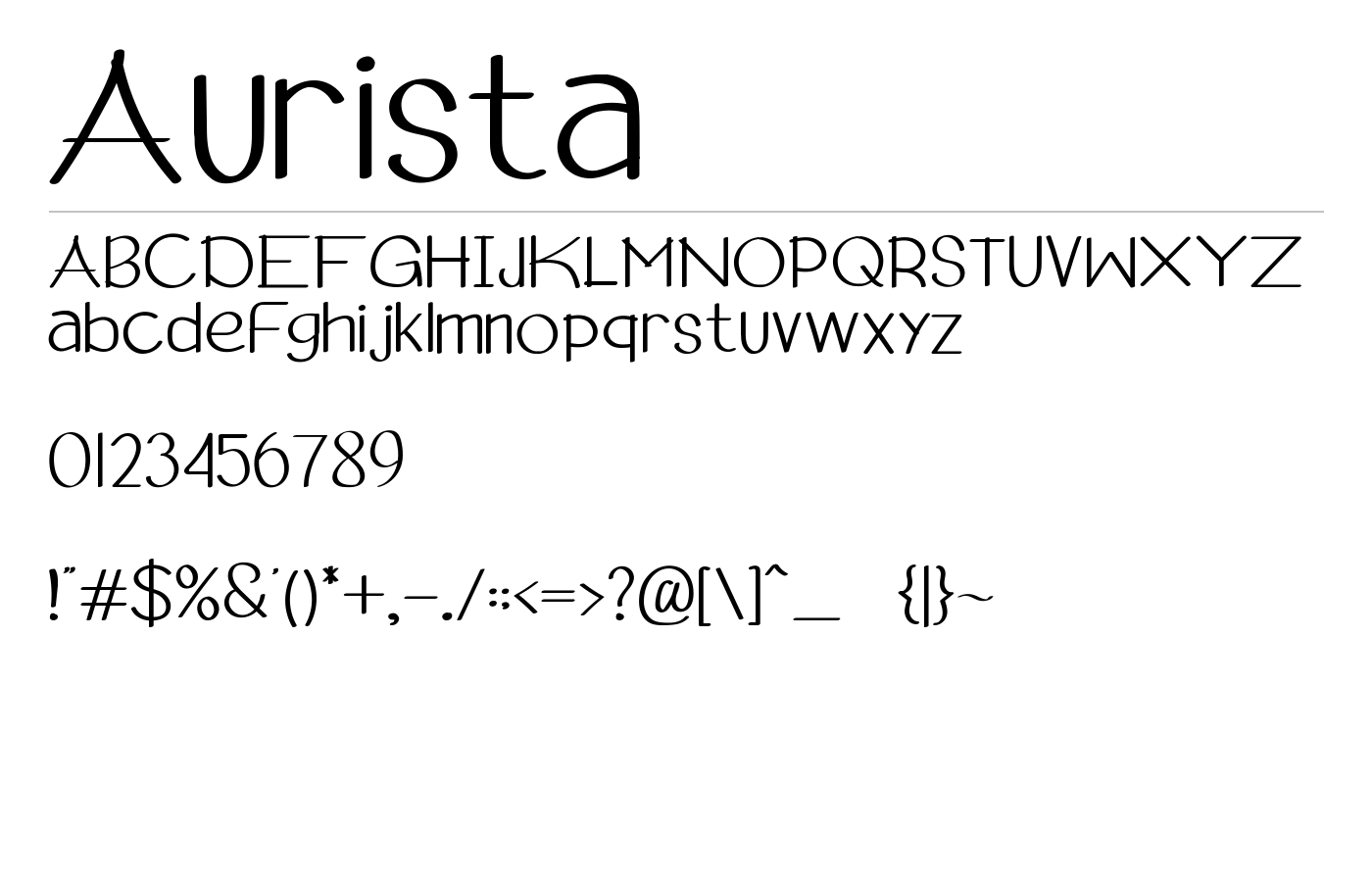
Aurista is a delicate serif font that blends a light weight with a tall, narrow structure, featuring thin, softly curved strokes and distinctive, slightly whimsical letterforms. Its elegant, vintage-inspired style with unique details like a gently flared uppercase "A" and a stylized ampersand gives it a refined yet approachable character, ideal for fashion, editorial, and luxury branding where a touch of sophistication and individuality is desired. This font works beautifully for headlines and logos that seek to convey elegance with a modern twist.
Aurista Font
About Aurista Font
| Font family | Aurista Font |
| Designer | Frederik Aristaputra |